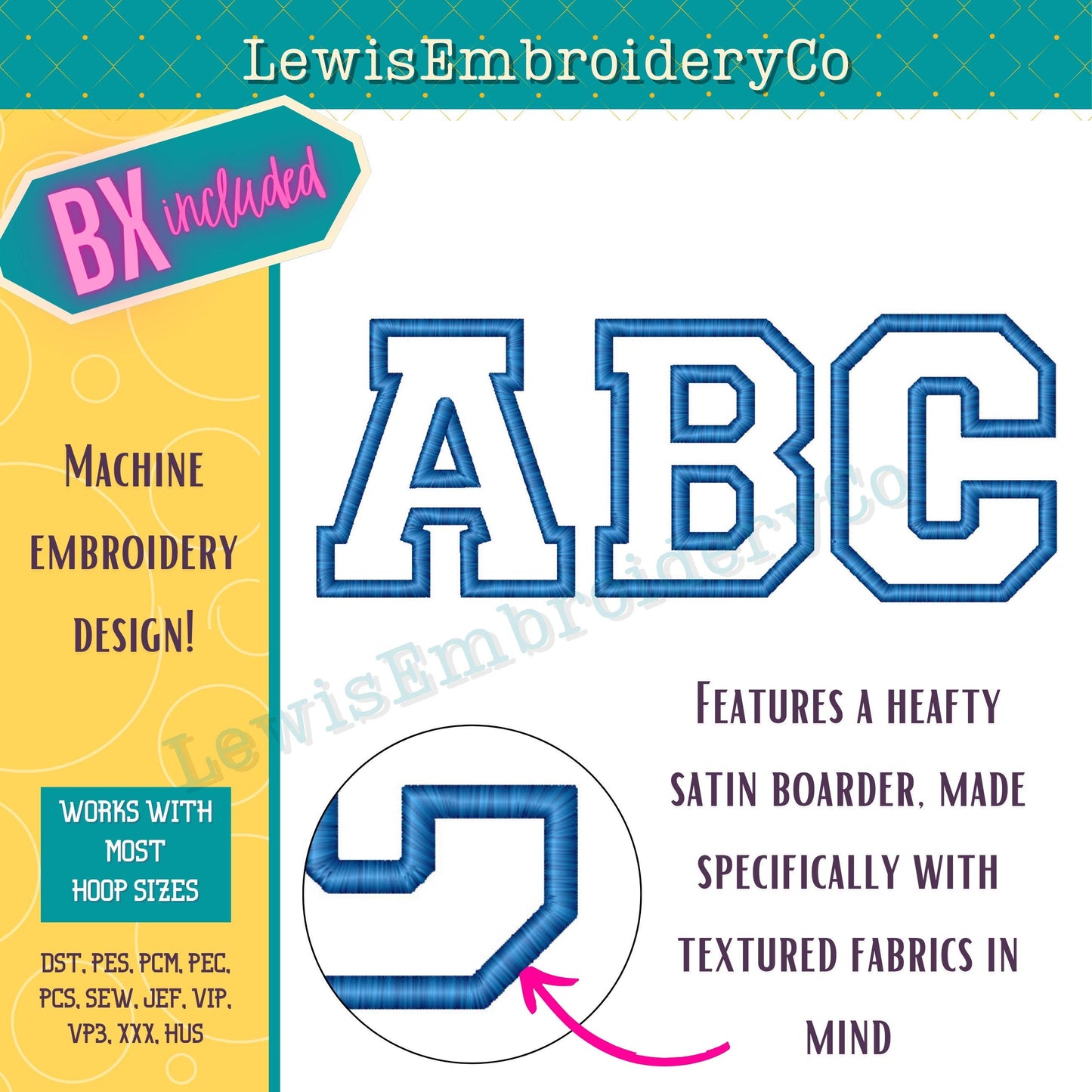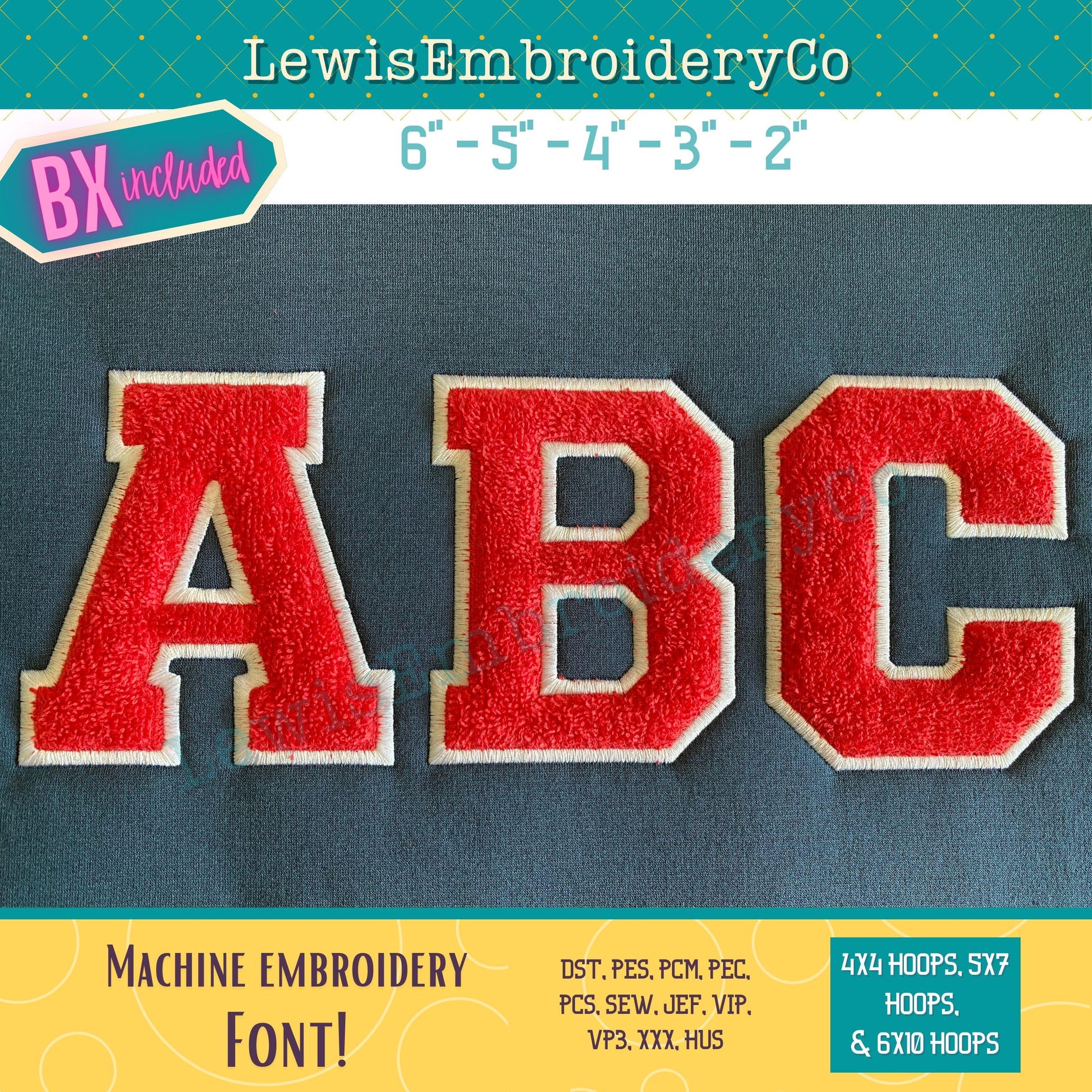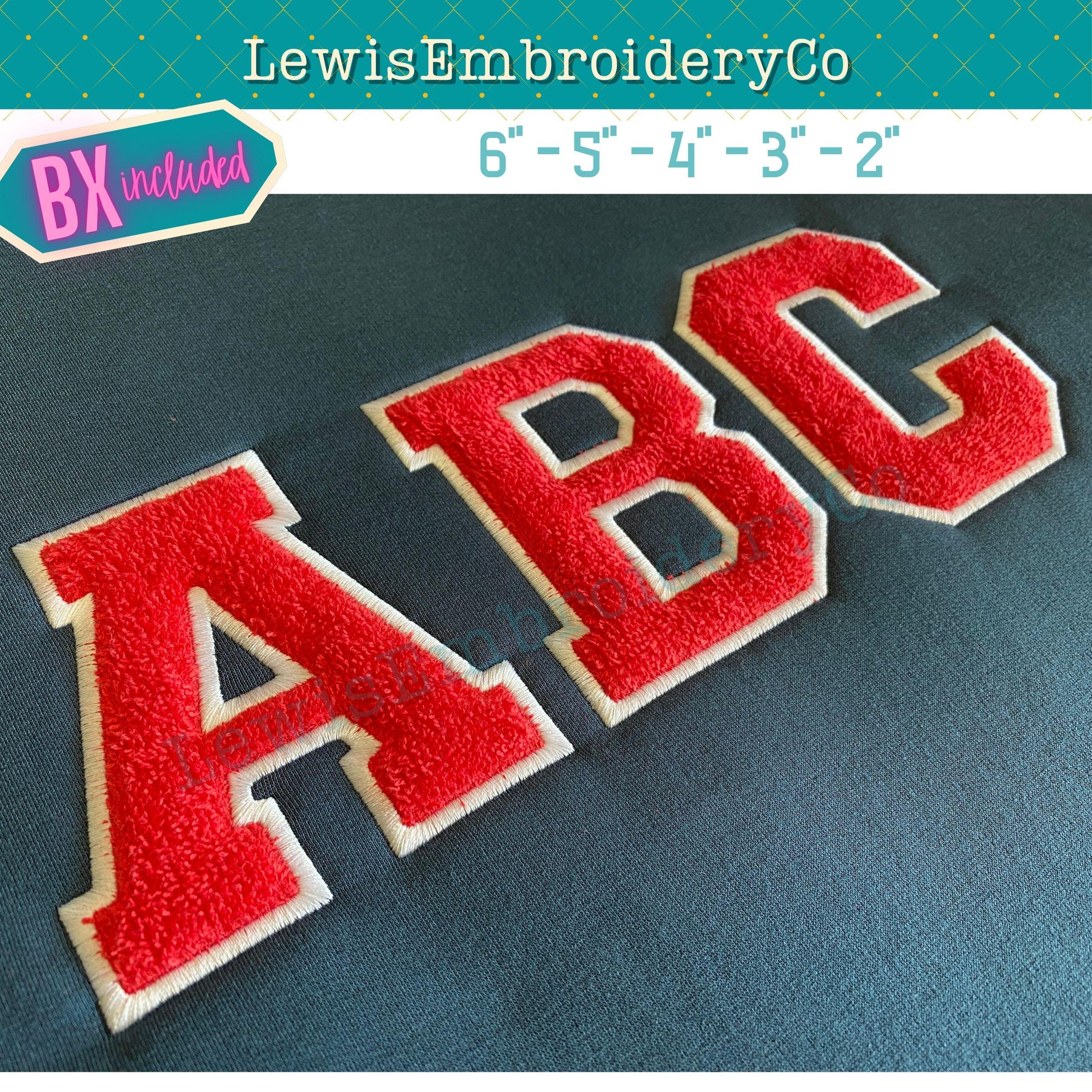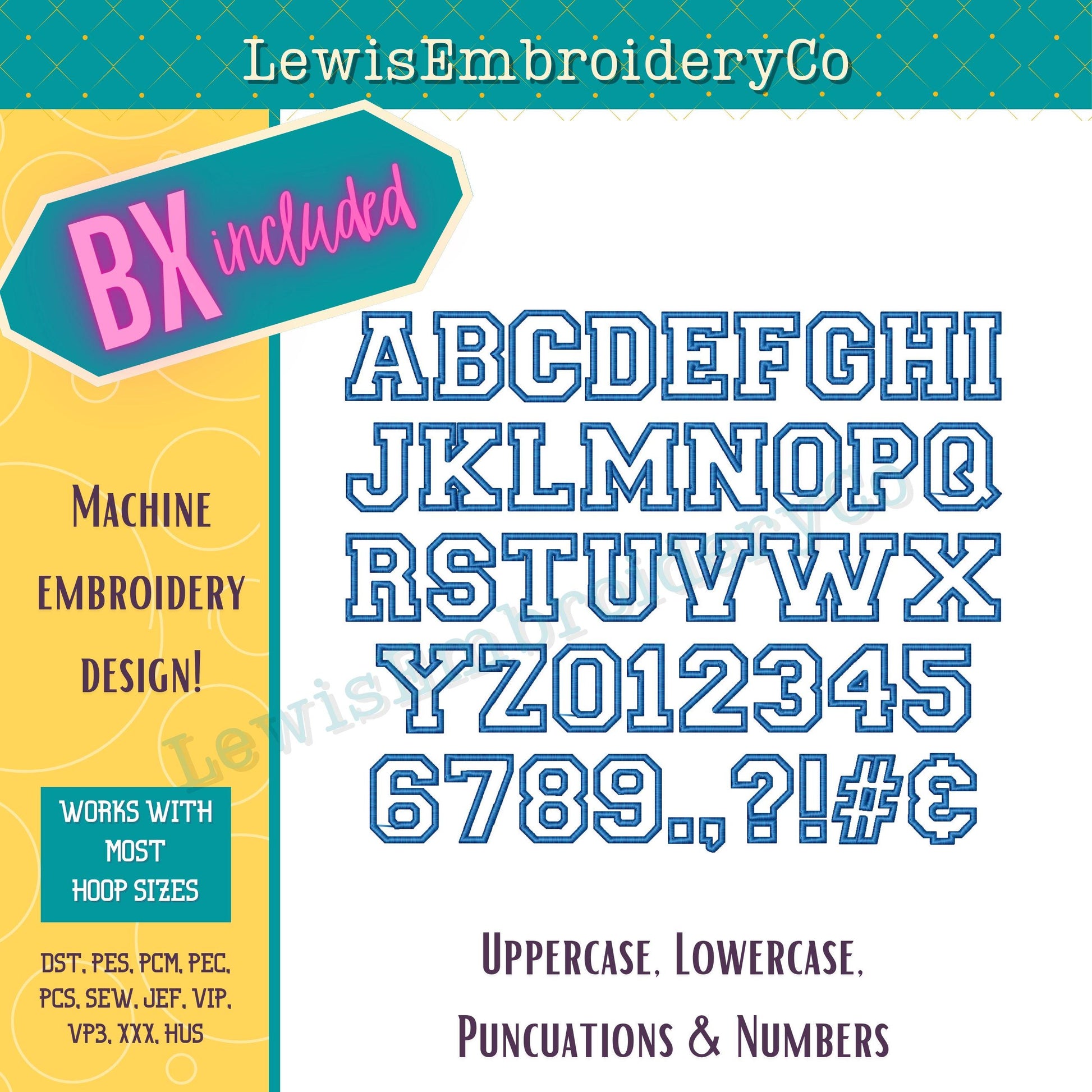
Faux Chenille Applique, Varsity Machine Embroidery Font - with BX - (PDF Tutorial Included)
Chenille Applique Varsity Embroidery Font - Faux Chenille Patch - Chenille Embroidery Font - Chenille Letters - Varsity Font -Lettermen Font
This fun font will add a nice touch to any of your projects!